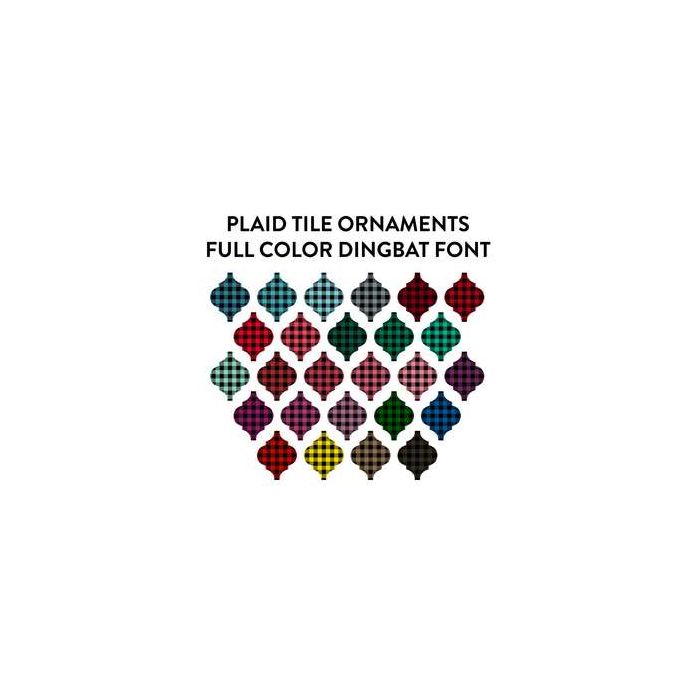
This full color otf font comes with both uppercase and lowercase letters that are hand drawn. Choose from 26 uniquely colored and coordinating tiles for all your Christmas ornaments.